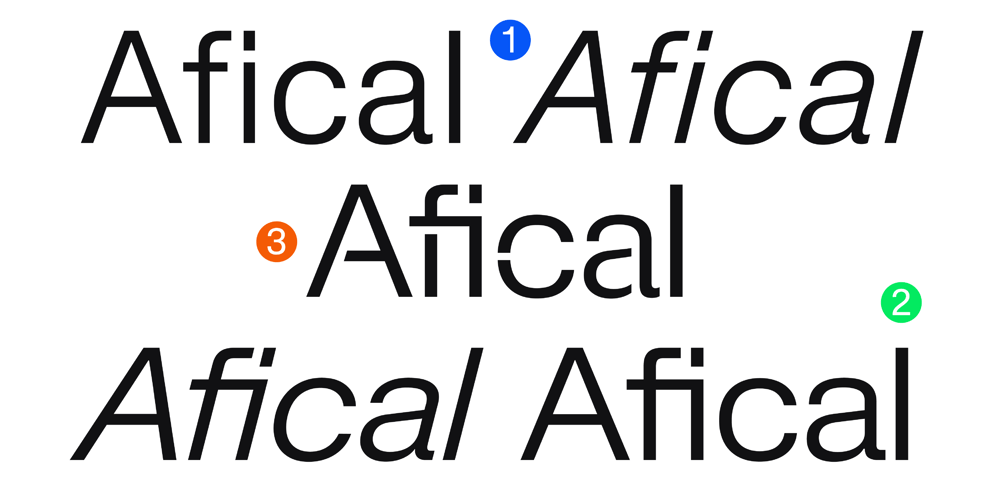
Afical Font Family was designed by Deni Anggara and published by Formatype Foundry. Afical contains 38 styles and family package options. Afical update 2.0 versionAfical Composed of 3 set families, consists of 35 fonts matching italic: Afical Std, Afical Neue, Afical Stencil. families all with distinctive qualities and features but share the same basic construction and proportions. Afical has been carefully crafted to focus on Text sizes and legibility with a high x-height, we developed it with Manual TrueType Hinting. Afical It’s a perfect choice for publication, Packaging, logo, branding, Signage, wayfinding design systems, as well as web and screen designOpenType features: Alternate Characters SS.01, SS.02, SS.03, SS.04, SS.05, DenominatorsCase-Sensitive Forms, Tabular Lining, Fractions, Ordinal, Ligatures, Discretionary Ligatures, Subscript, Superscript, Language Support: 63+ (Latin based) languagesAfrikaans, Albanian, Asu, Basque, Bemba-language, Bena, Danish, Dutch, English, Estonian, Faroese, Filipino, Finnish, French, Friulian, Gaelic (Irish, Scots), German, Gusii-language, Hungarian, Icelandic, Indonesian, Irish, Italian, Kabuverdianu, Kalenjin, Cornish, Luhya, Luo-Language, Machame, Madagascan, Makhuwa-Meetto, Makonde, Malayan, Manx, Morisyen, North-Ndebele-Language, Norwegian, Bokmål, Nynorsk, Nyankore, Oromo, Pare, Portuguese, Rombo, Rwandan, Rukiga, Rundi, Rwa, Samburu, Sango, Sangu, Swedish, Swiss German, Sena, Shambala, Shona, Soga, Somali, Spanish, Swahili, Taita, Teso, Vunjo, ZuluBehanceLooking for custom Afical? Please send us an email at hello@formatypefoundry.comDesigned 2017 Published 20212021 Copyright © Formatype Foundry All rights reserved